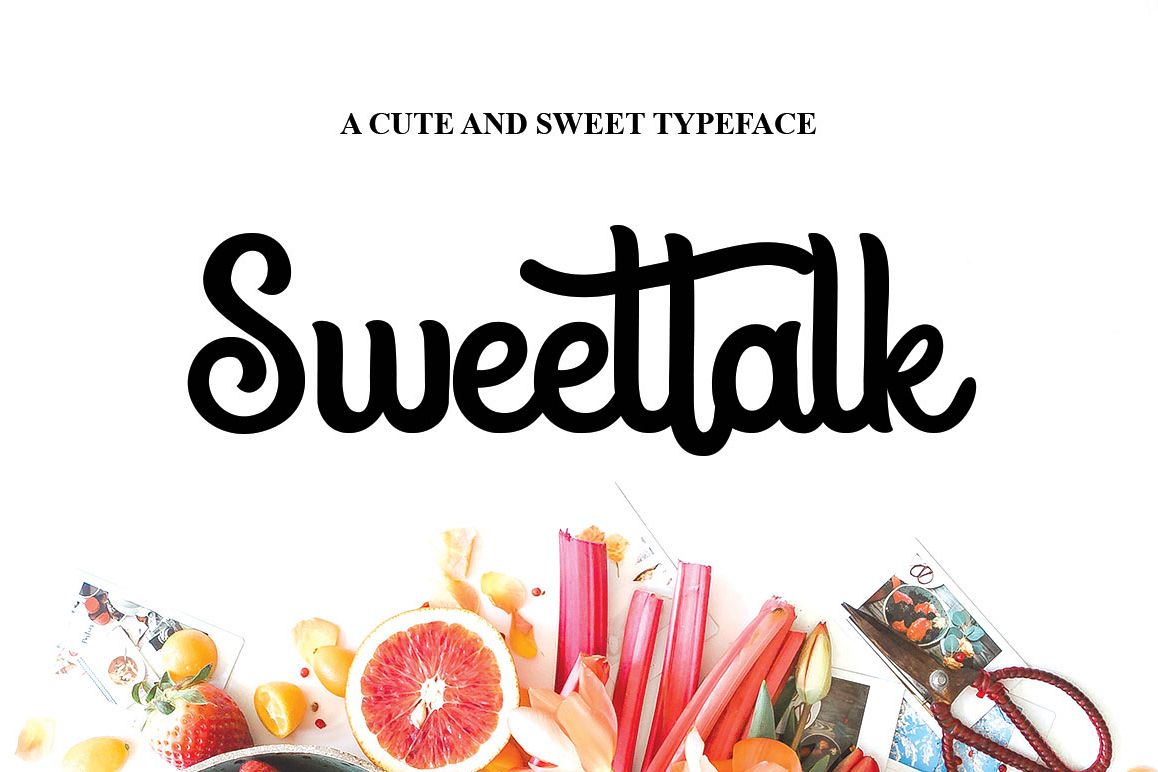
Sweet Talk
Introducing Sweet Talk a beautiful bold connected script font with a cute letters styles it's allow you to make beautiful hand-lettering typography easily. This font comes with upper and lowercase characters, large set of punctuation glyph, numerals, and supports international languages.
Sweet Talk available in Regular and Italic.You can use this font for branding, apparel, watermark on photography, signature or signature logo design, quotes, album cover, business card, and many other design project.